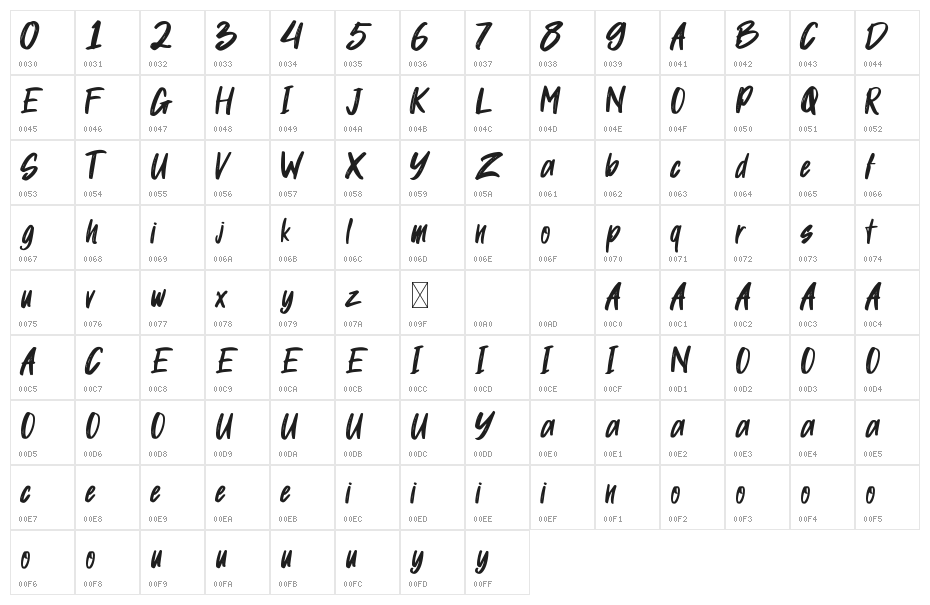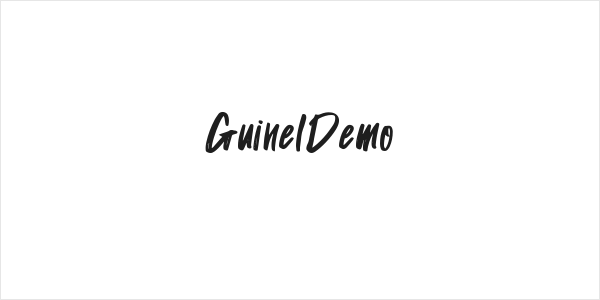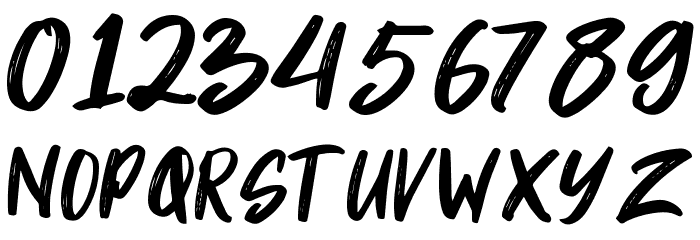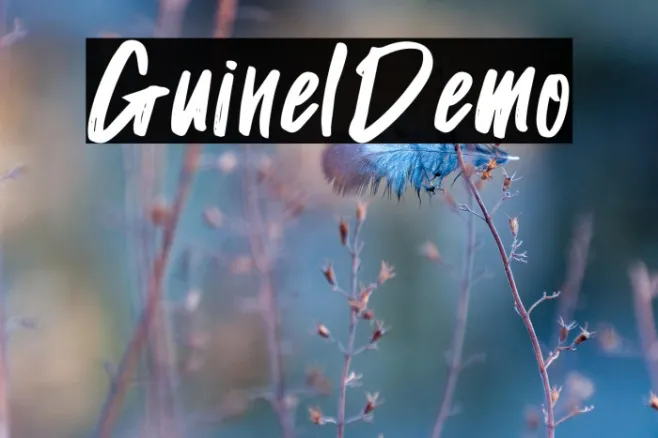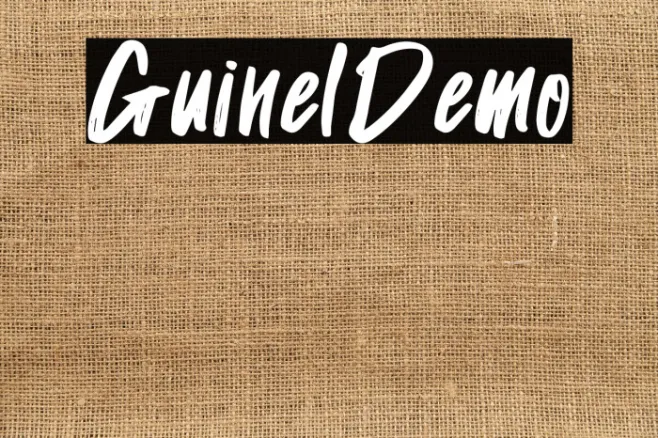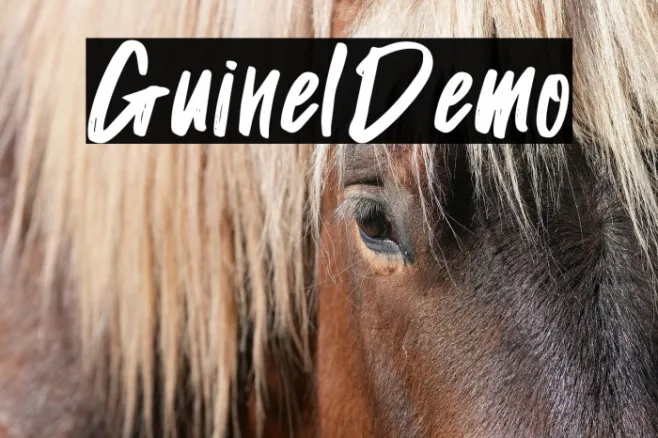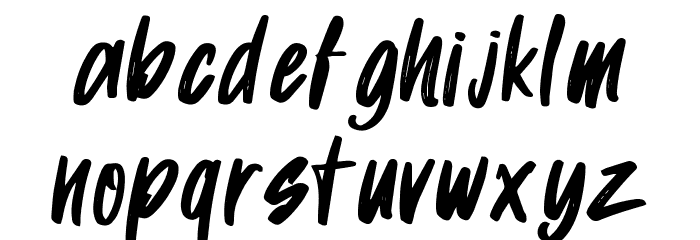
GuinelDemo Font
GuinelDemo Description
This font features a bold, handwritten style with a dynamic and energetic appearance. The strokes are thick and expressive, giving it a lively and informal feel. Each character is slightly slanted, adding to the casual and playful nature of the design. The letters are well-spaced, ensuring readability while maintaining a cohesive look. The uppercase and lowercase letters are consistent in style, with rounded edges and a brush-like texture that adds depth and character. The numerals and special characters follow the same design principles, making this font versatile for various creative applications.